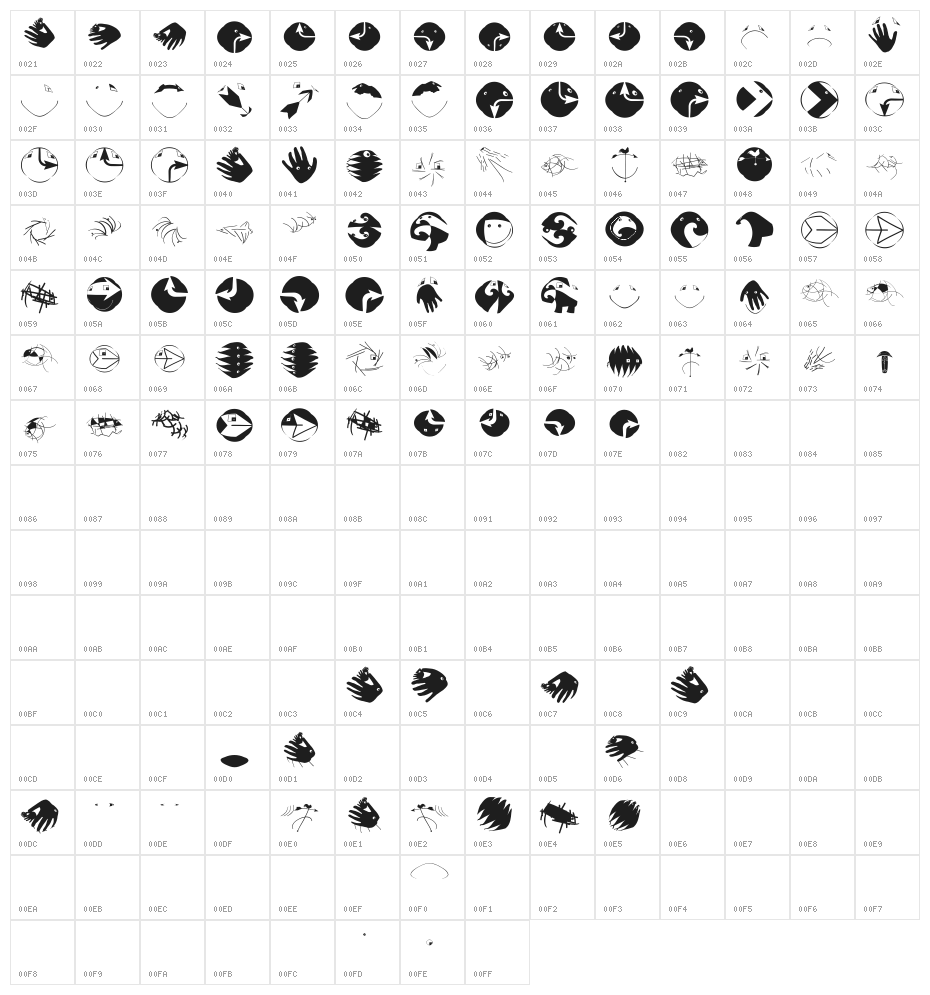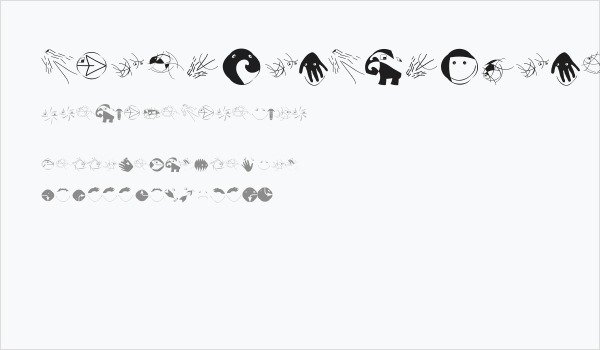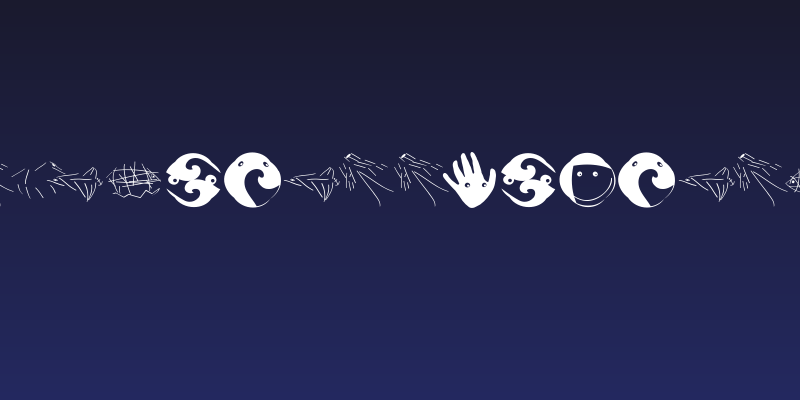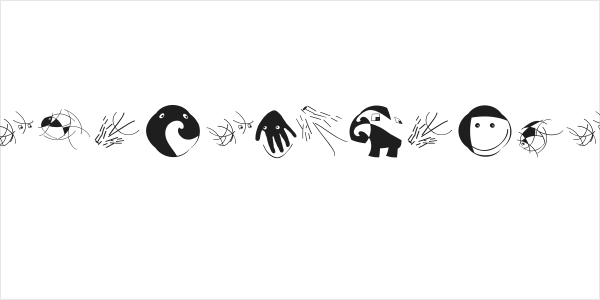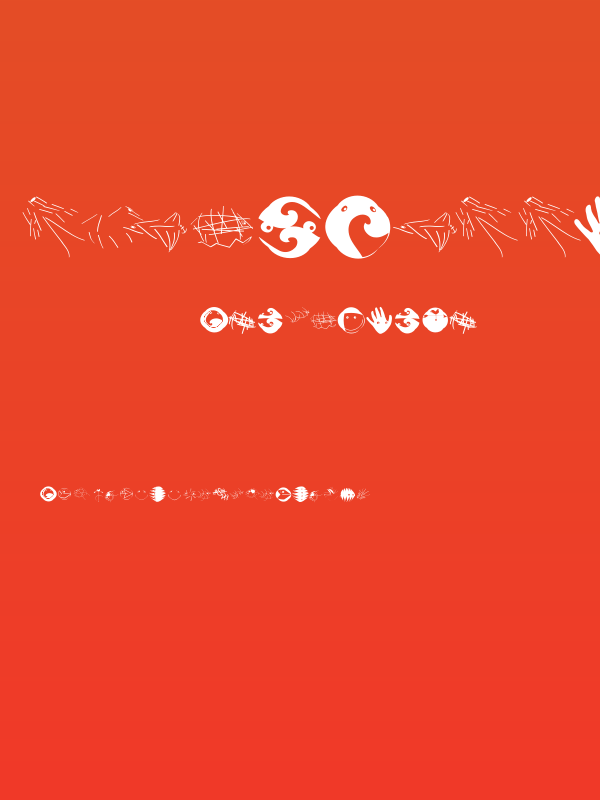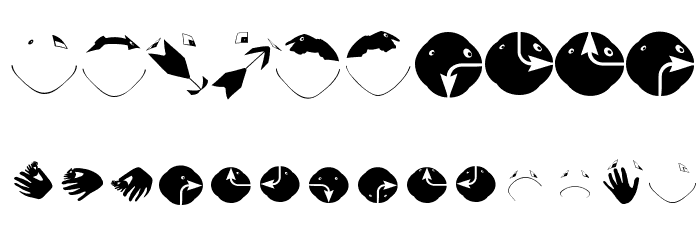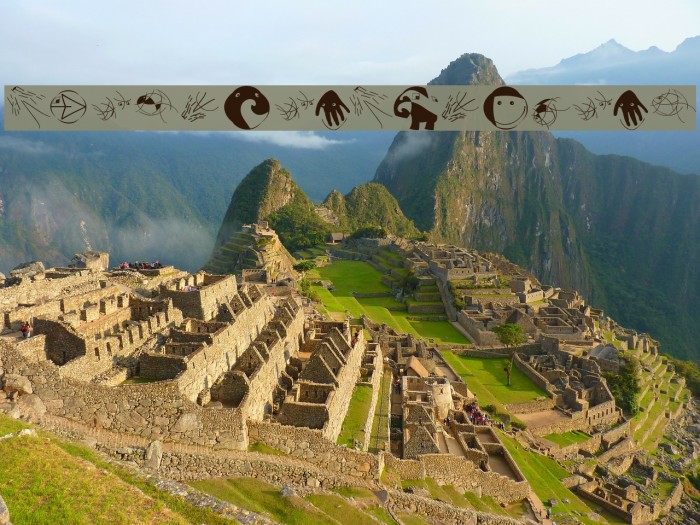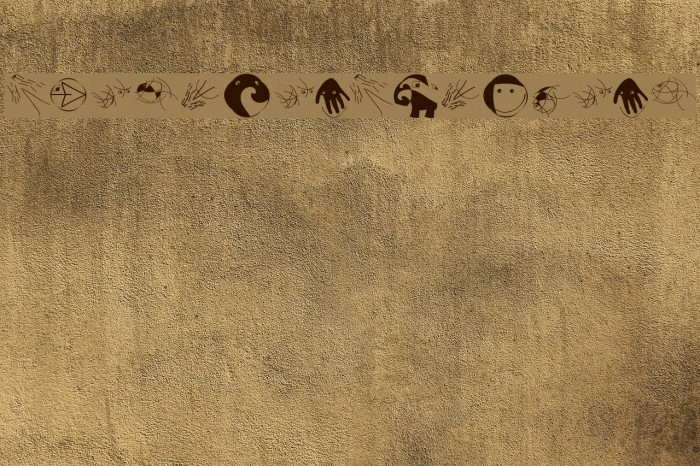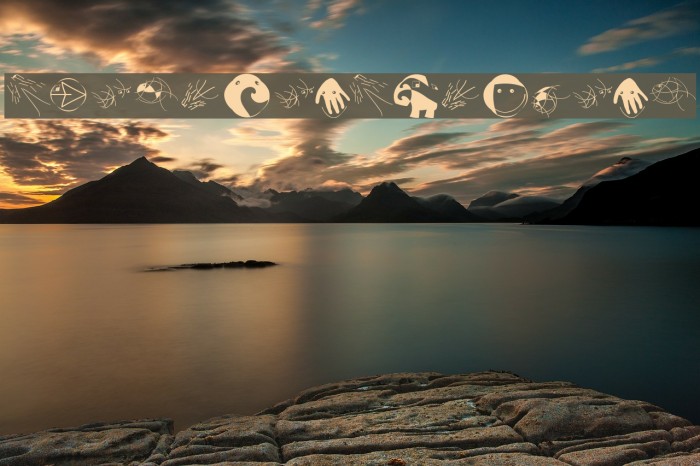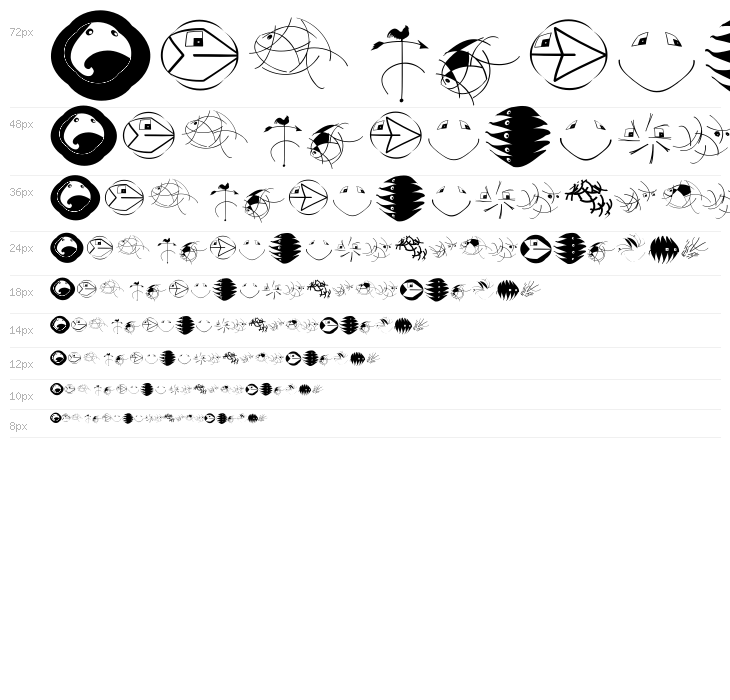
DingsUndDasRunde Font
DingsUndDasRunde Description
A highly decorative and playful dingbat font composed of abstract, whimsical shapes and pictograms, including hands, animals, faces, and geometric forms, with a mix of solid black and fine linework elements.
| Overall Style | Decorative, Whimsical, Abstract |
| Use Case | Icons, Decorative elements, Thematic dividers, Visual storytelling |
| Proposed Projects | Children’s books, creative posters, educational materials, playful branding, art projects. |